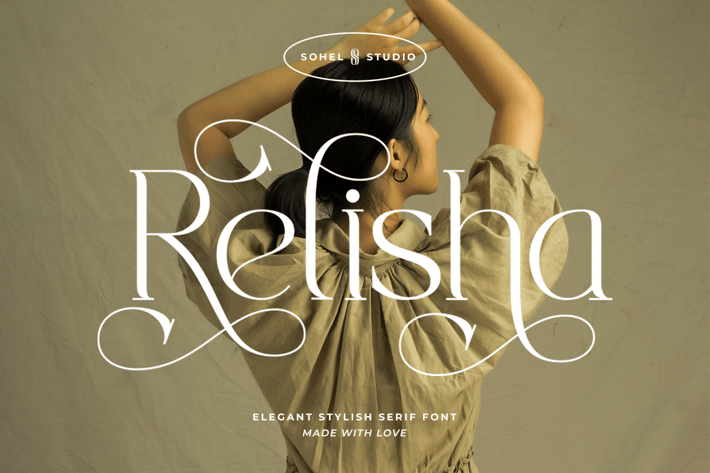
Relisha - Classy Advertising Typeface
Relisha - is a Modern Elegant Serif typeface with Unique alternative , multilingual support with perfect kerning. This typeface is perfect for an elegant & luxury logo , classy editorial design, women's magazine, fashion brand , cosmetic brand, fashion promotion , modern advertising design, invitation card, art quote, home decoration , book/cover titles, special events, Tote bag, T-shirt, Advertising and much more.
Relisha Features:
Uppercase And Lowercase
Alternates And Ligatures
Numerals & Punctuation
Accented characters
* Unicode PUA Encoded